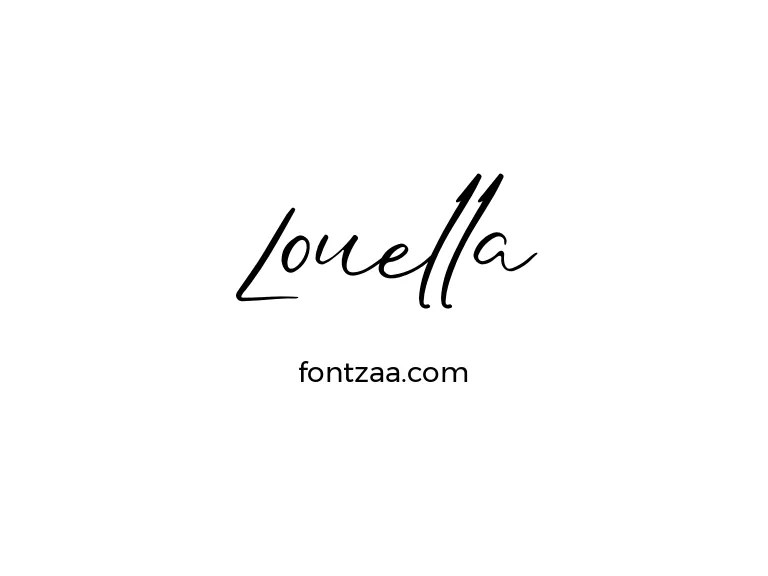
Louella Font is an elegant typeface published by Unknown Publisher. The download includes 1 font file (OTF) with 111 glyphs, covering uppercase and lowercase letters, numerals, common punctuation, accented Latin characters and currency symbols. It suits invitations, wedding stationery, signatures, quotes and elegant branding, particularly at larger sizes where the letter shapes are easier to see.
Louella Font Family
| Category | Script |
Pairing and Use
For body text, pair Louella Font with a clean sans serif such as Montserrat or Lato and keep the font itself for headlines and key words.